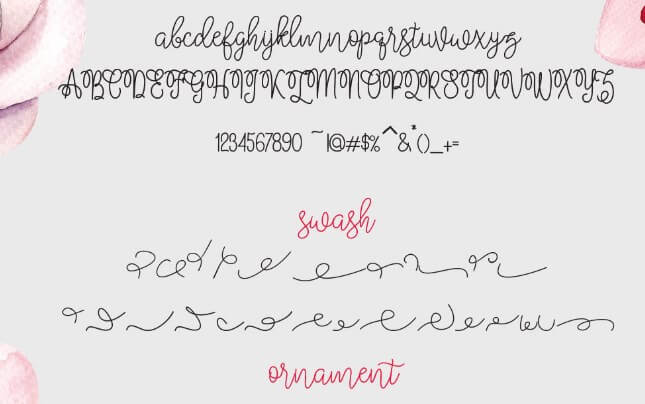
Bralyn Script Font
Bralyn Script Font is beautifully subtle, expert, and extra fascinating. Quality of all, they’re free to use, so you can easily download. And strive all of them earlier than choosing your best and favorite.
It’s a beautiful, energetic and cursive font likeĀ Prata Font that you can use with its different variations on any non-public challenge at no cost.